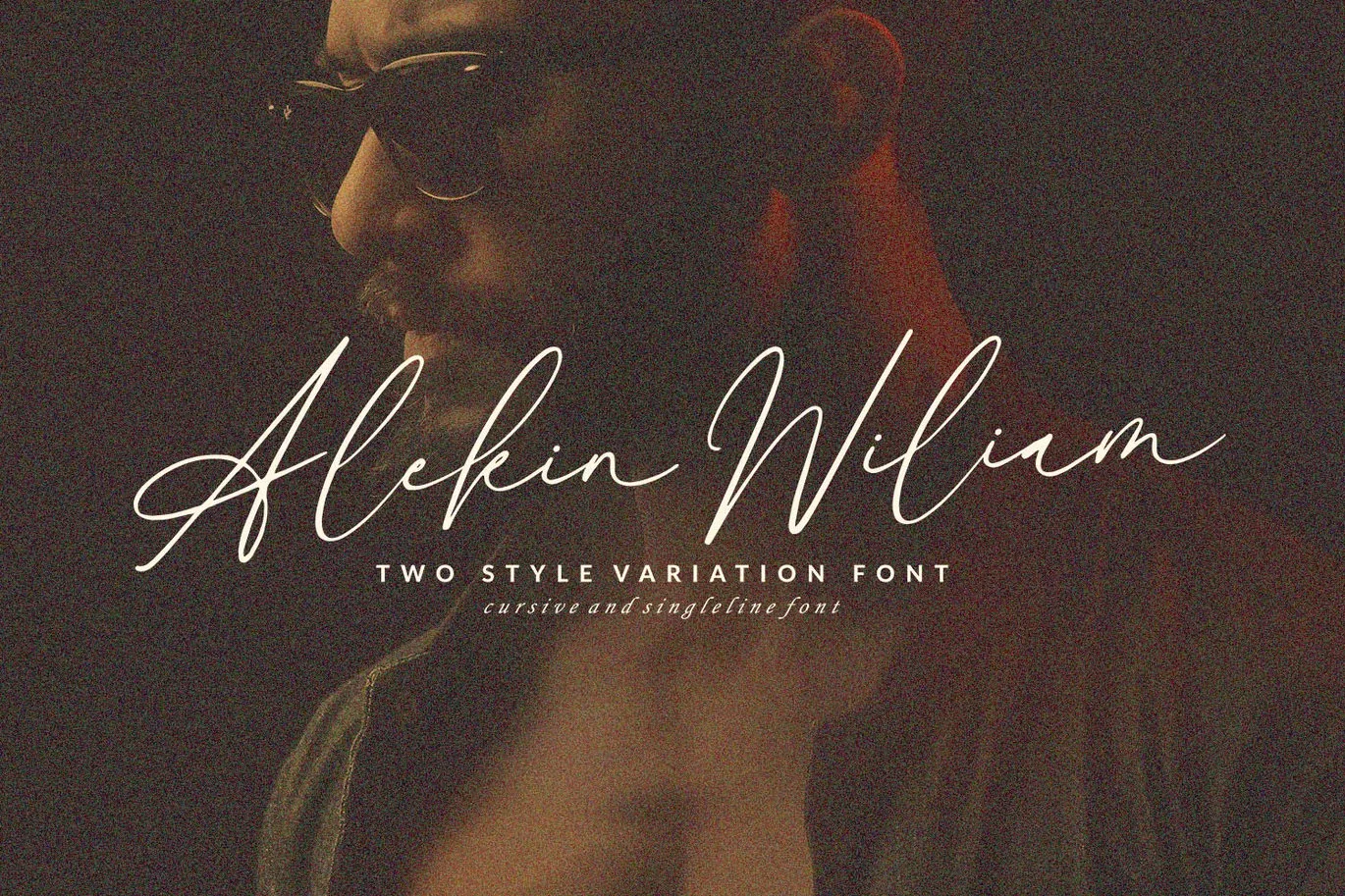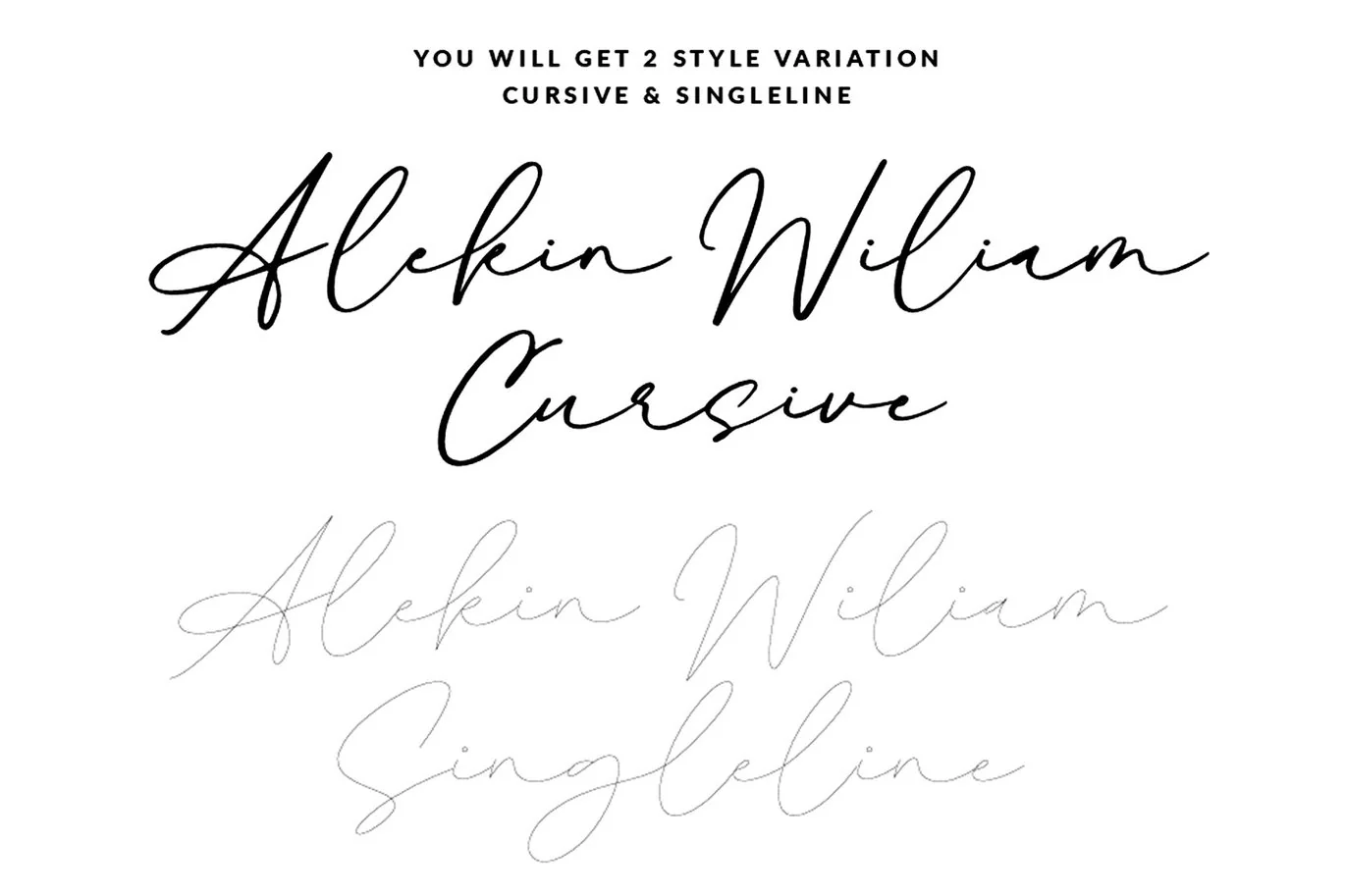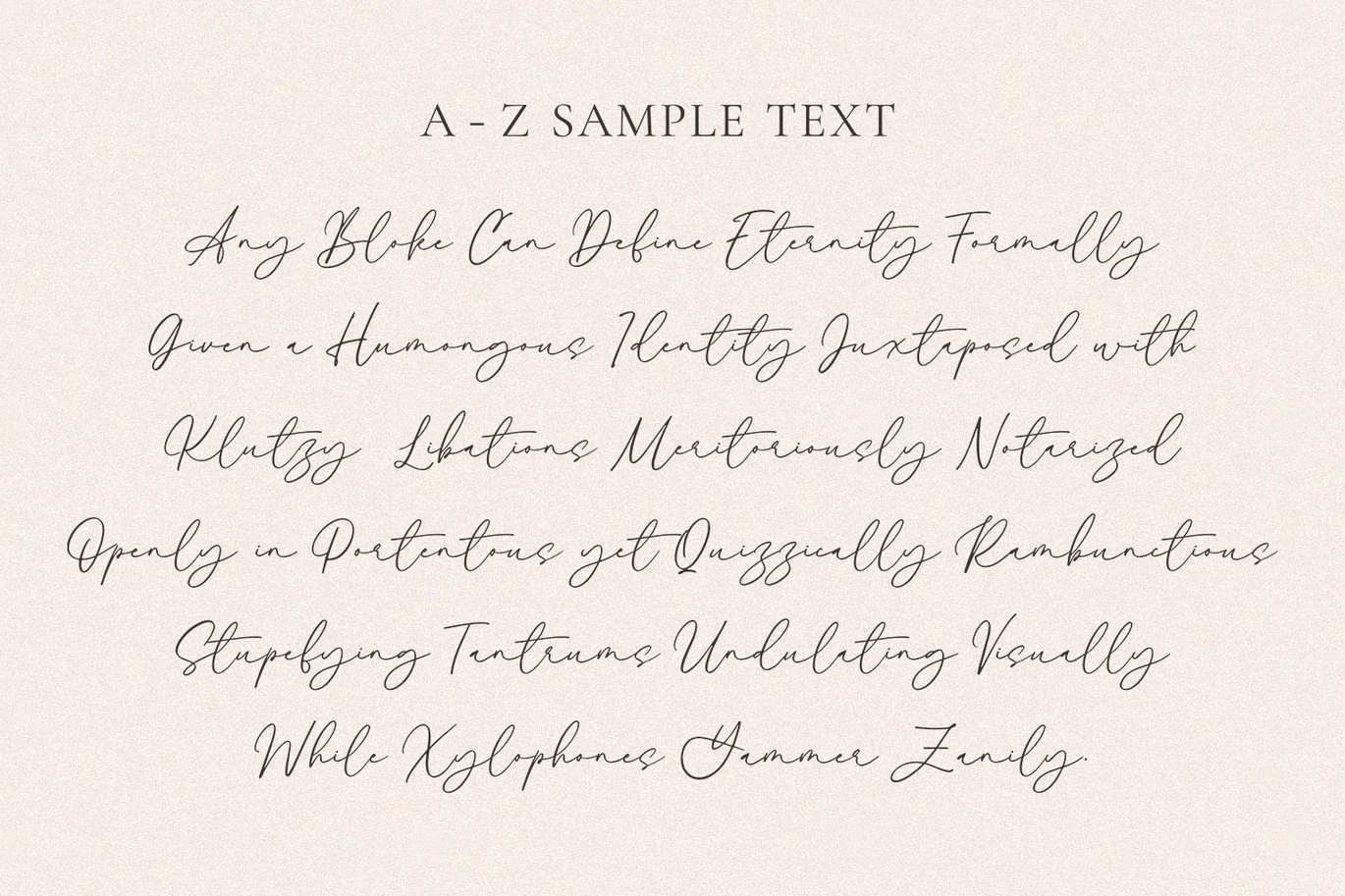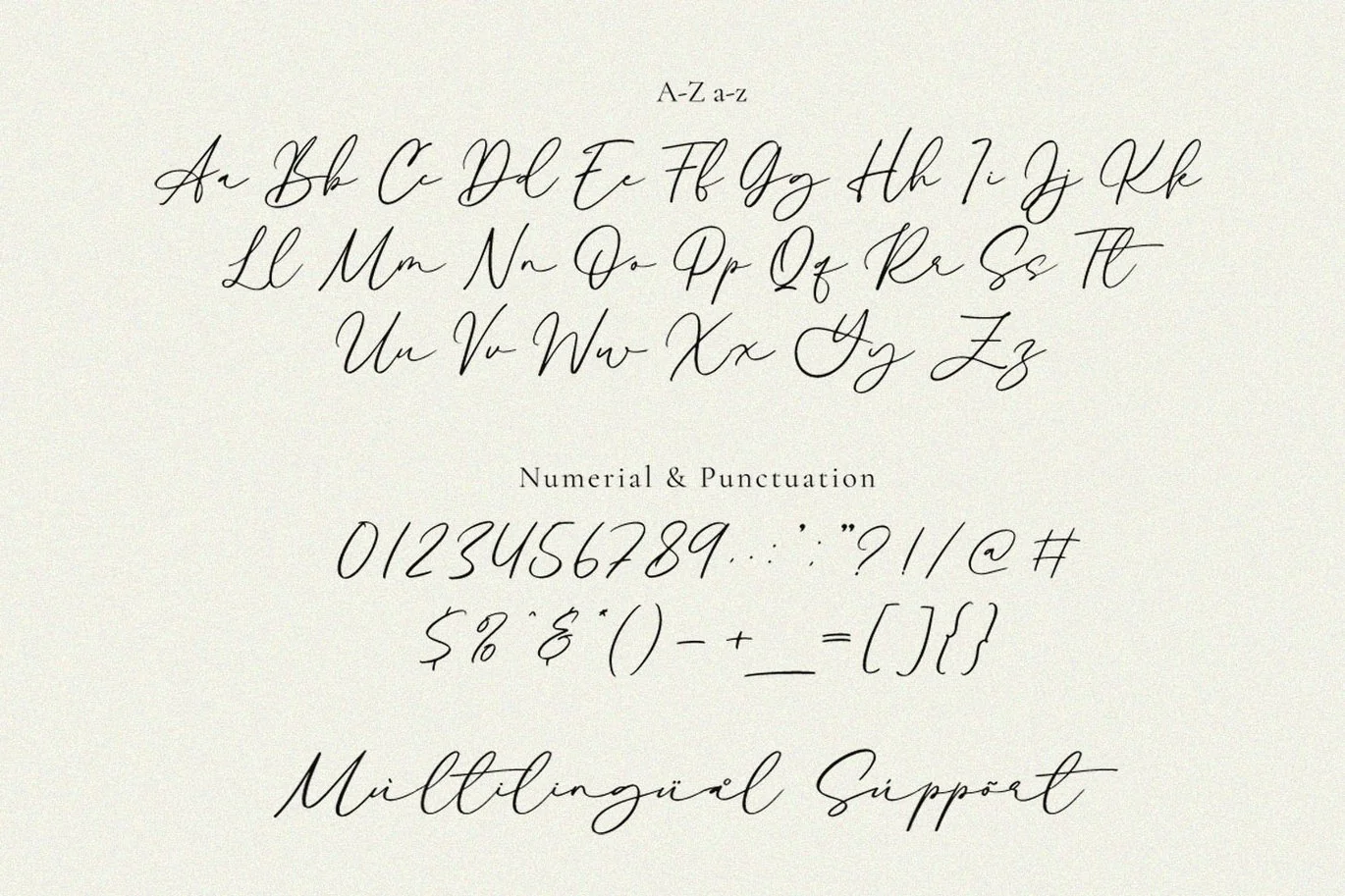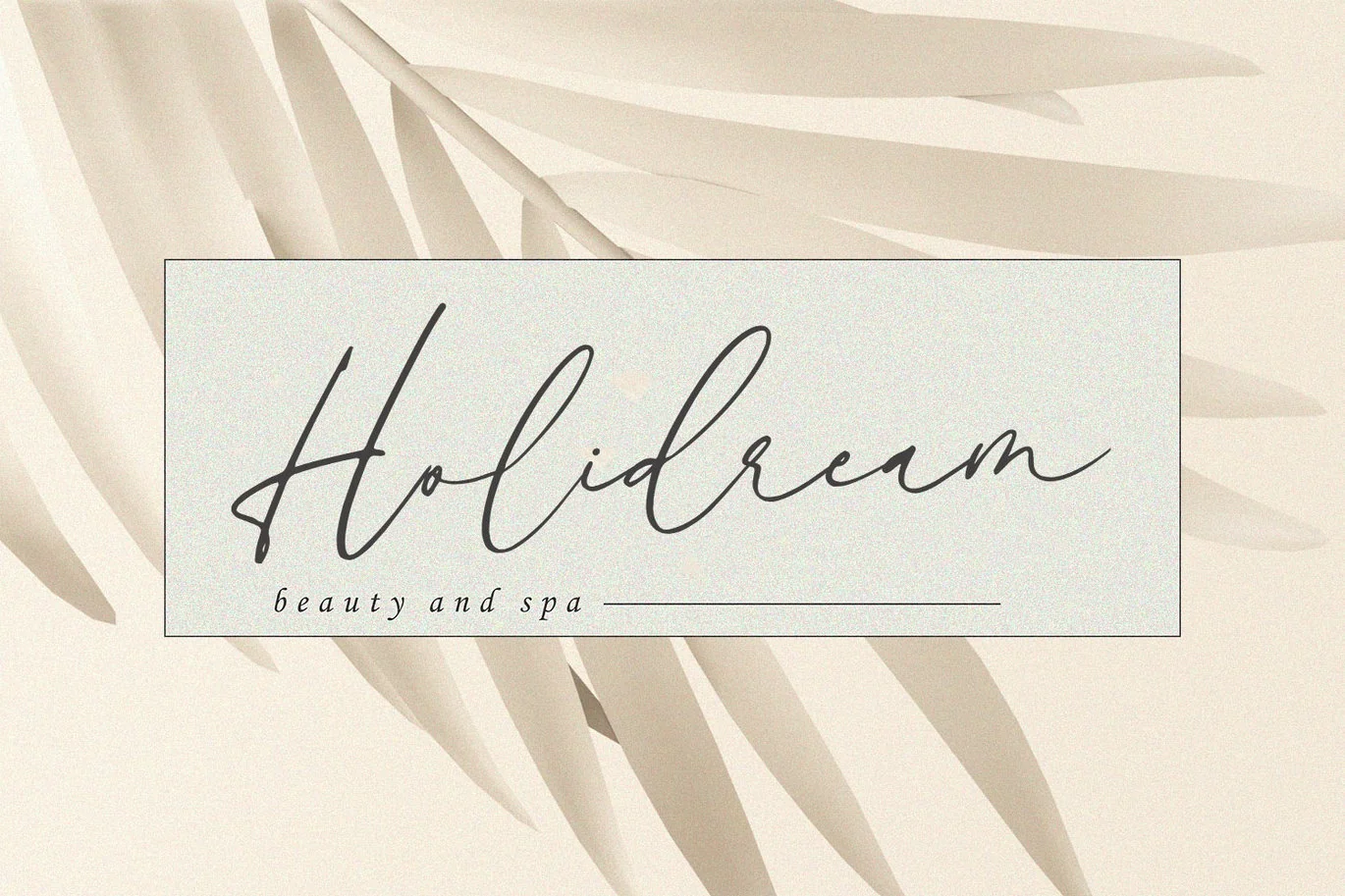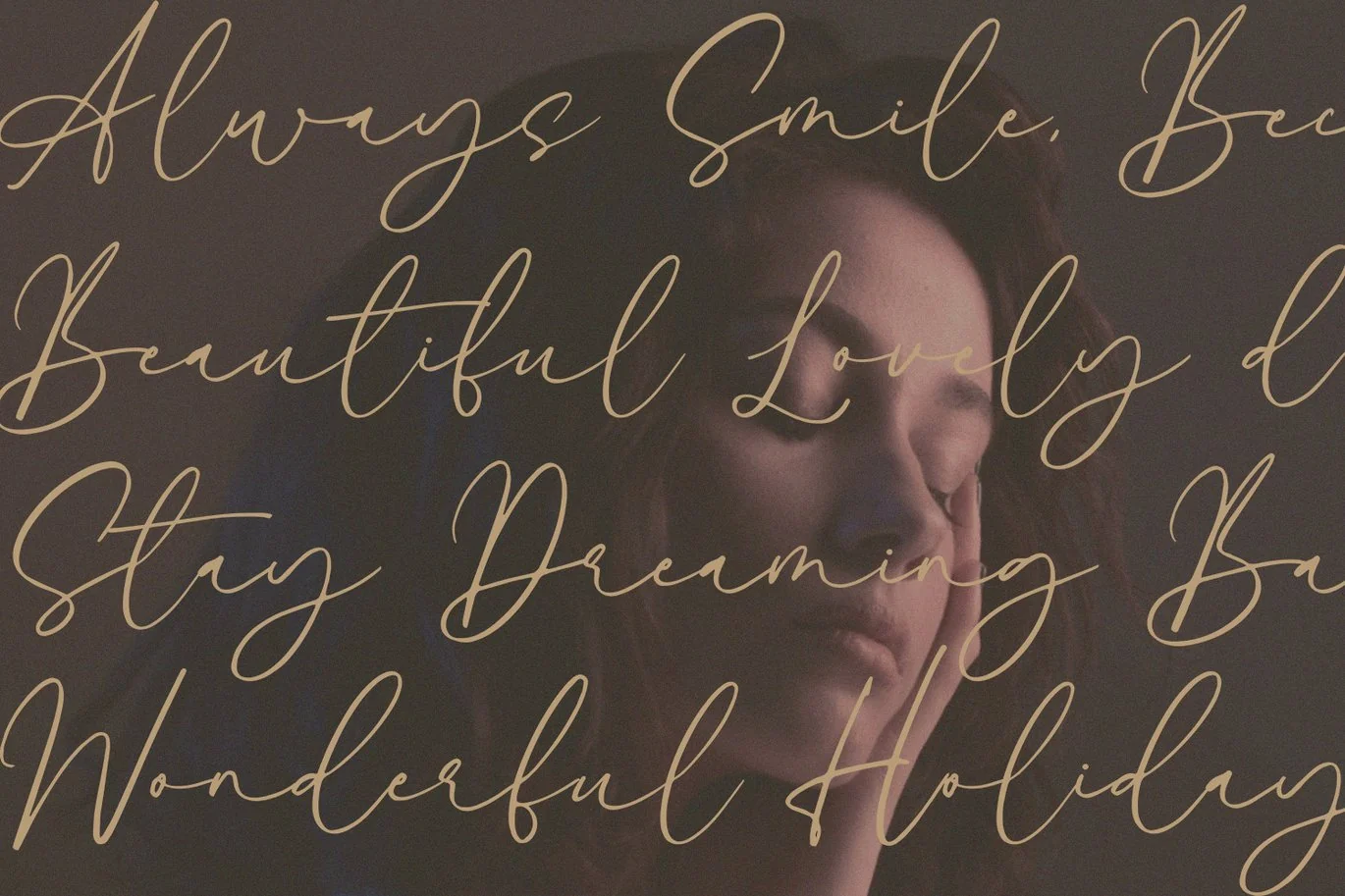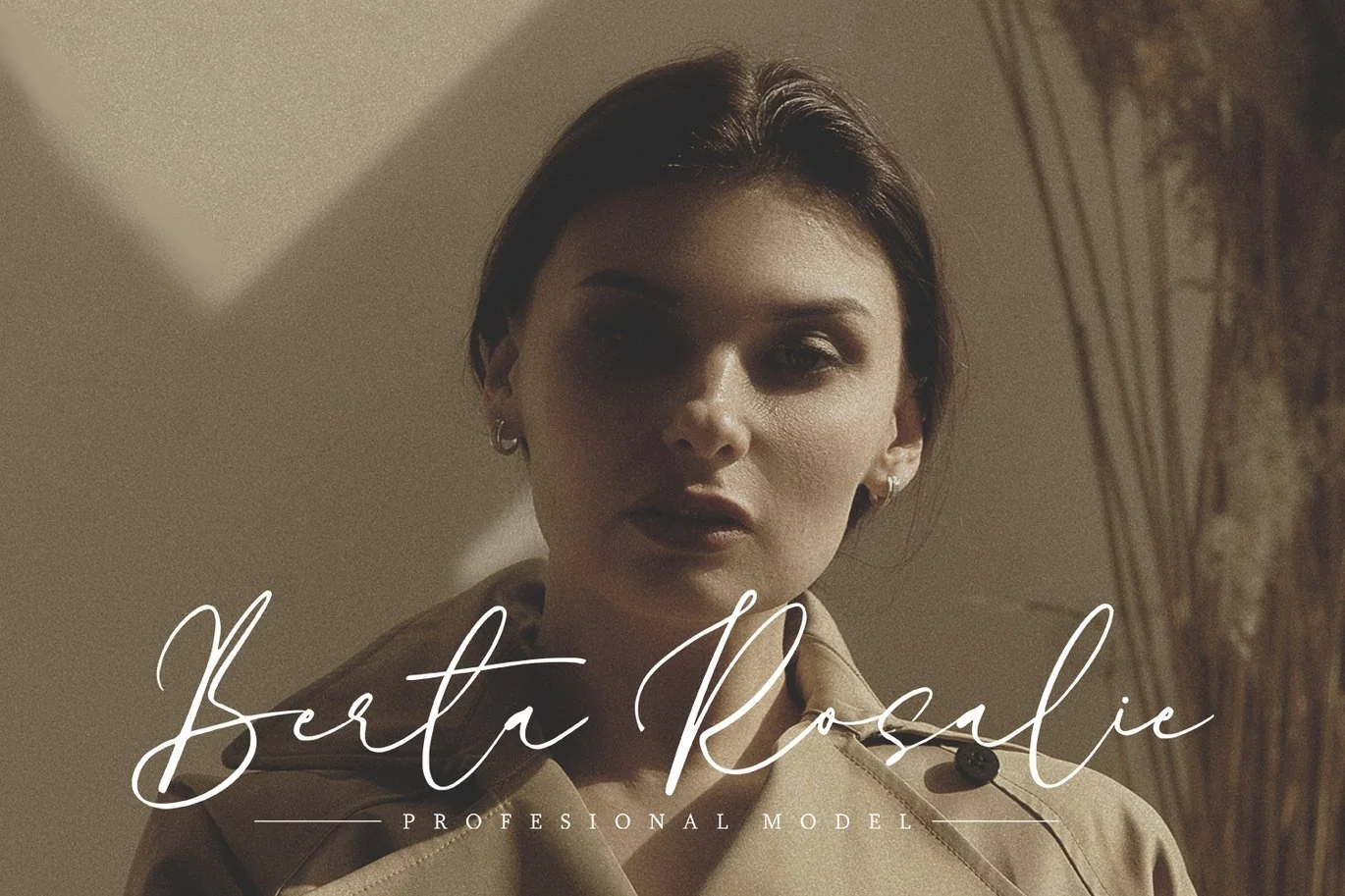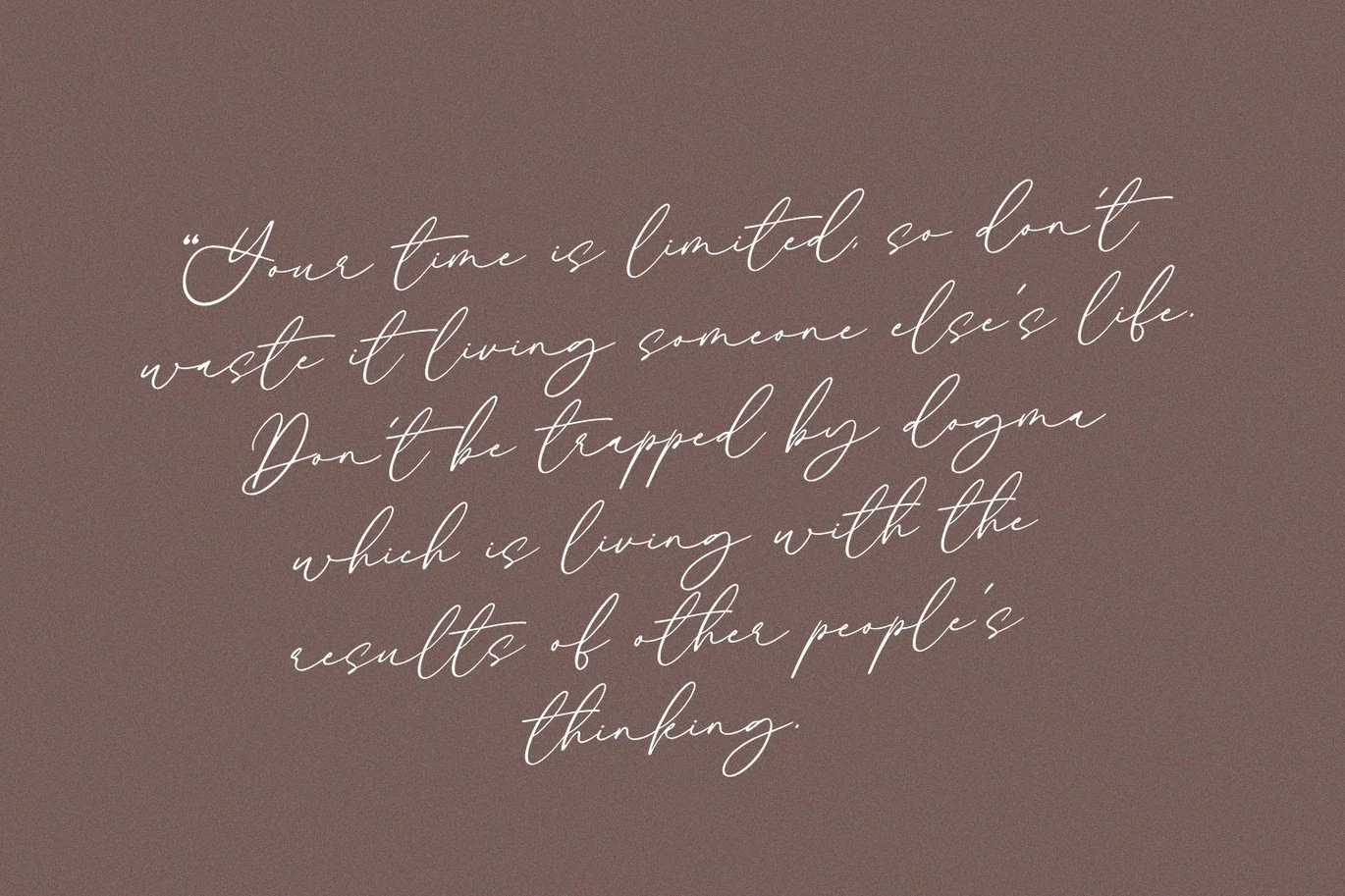
Alekin Wiliam – Signature font & Singleline
Alekin Wiliam is a cursive Signature Font, font with a touch of handwriting style. This font is perfect for creating signature
logos and watermarks for photography studio or wedding invitation.
Alekin Wiliam includes full set of beautifull hand lettered uppercase and lowercase letters, numerals and
a large range of punctuation
Singleline Version